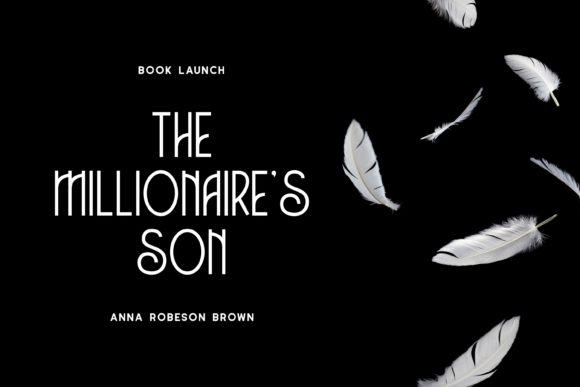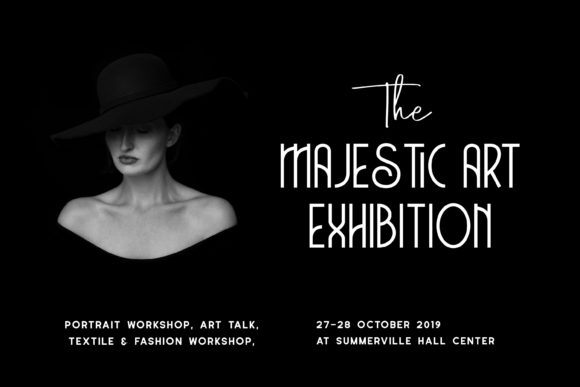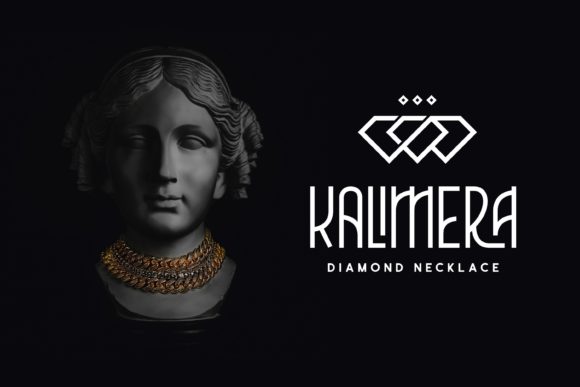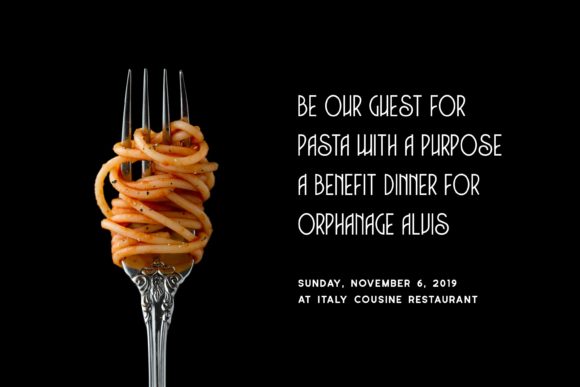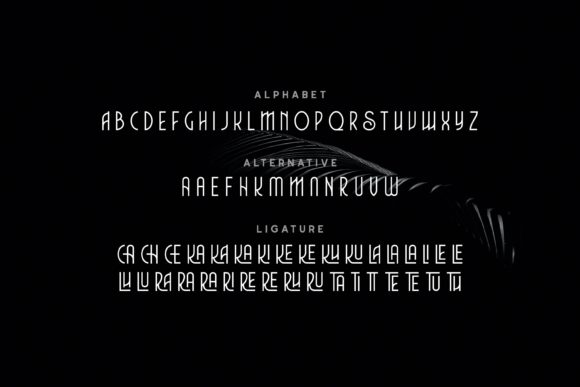
Introducing Charlie Font: The Epitome of Elegance and Charm
Charlie is a sweet and elegant display font that will convey any message with grace and charm. Designed to make a lasting impression, this beautiful font is perfect for a wide range of creative projects, from branding and advertising to crafting and DIY endeavors. In this article, we’ll take a closer look at Charlie Font, exploring its features, uses, and benefits for designers and crafters alike.
A Font that Exudes Elegance and Sophistication
Charlie Font is a masterclass in typographic design, boasting a unique blend of classic and modern elements. Its slender lines, delicate curves, and precise craftsmanship come together to create a truly stunning display font. Whether you’re looking to add a touch of luxury to your branding, create eye-catching headlines, or simply add a personal touch to your crafting projects, Charlie Font is the perfect choice.
Key Features of Charlie Font
- Elegant and Refined Design: Charlie Font features a sleek and sophisticated design, perfect for projects that require a touch of class and sophistication.
- Highly Versatile: This font is suitable for a wide range of applications, from digital and print materials to crafting and DIY projects.
- Easy to Read: Despite its elegant design, Charlie Font is highly legible, making it perfect for use in body text and captions.
- Extensive Language Support: Charlie Font supports a wide range of languages, making it a great choice for international projects.
Uses for Charlie Font
Charlie Font is an incredibly versatile font that can be used in a variety of creative projects. Here are just a few ideas to get you started:
- Branding and Advertising: Use Charlie Font to create stunning logos, business cards, and advertising materials that exude elegance and sophistication.
- Crafting and DIY Projects: Add a personal touch to your crafting and DIY projects, such as handmade cards, gift tags, and scrapbooking pages.
- Digital and Print Materials: Use Charlie Font in digital and print materials, such as brochures, flyers, and social media graphics.
- Wedding and Event Planning: Create beautiful wedding invitations, programs, and other event materials with Charlie Font.
Charlie Font offers a range of benefits for designers and crafters, including:
- Time-Saving: With Charlie Font, you can create stunning designs and projects in a fraction of the time it would take with other fonts.
- Professional Results: Achieve professional-looking results with Charlie Font, even if you’re not a seasoned designer.
- Endless Creative Possibilities: With its versatility and elegance, Charlie Font opens up endless creative possibilities for designers and crafters.
In conclusion, Charlie Font is a sweet and elegant display font that is sure to convey any message with grace and charm. With its refined design, versatility, and ease of use, this font is perfect for designers and crafters looking to add a touch of elegance and sophistication to their projects. Whether you’re working on a branding campaign, crafting project, or DIY endeavor, Charlie Font is the perfect choice.